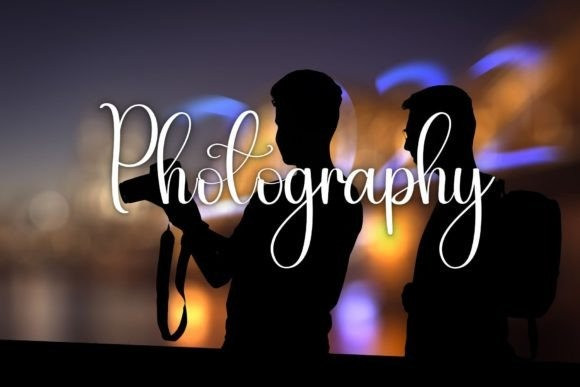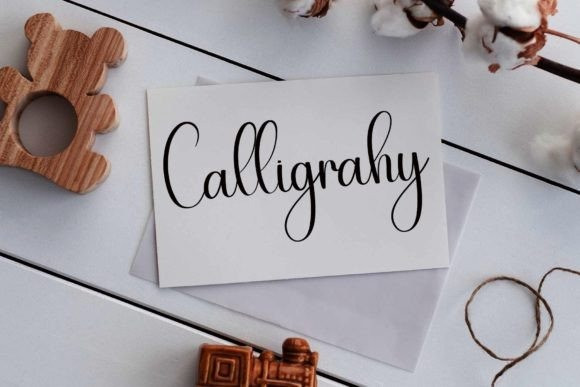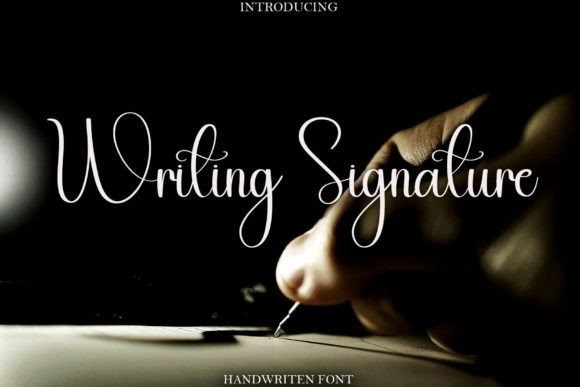
Writing Signature Calligraphy Font
Writing Signature Calligraphy Font is a sweet and thin serif font. Featuring characters that dance along the baseline, this font will add a luxury spark to any design project that you wish to create!